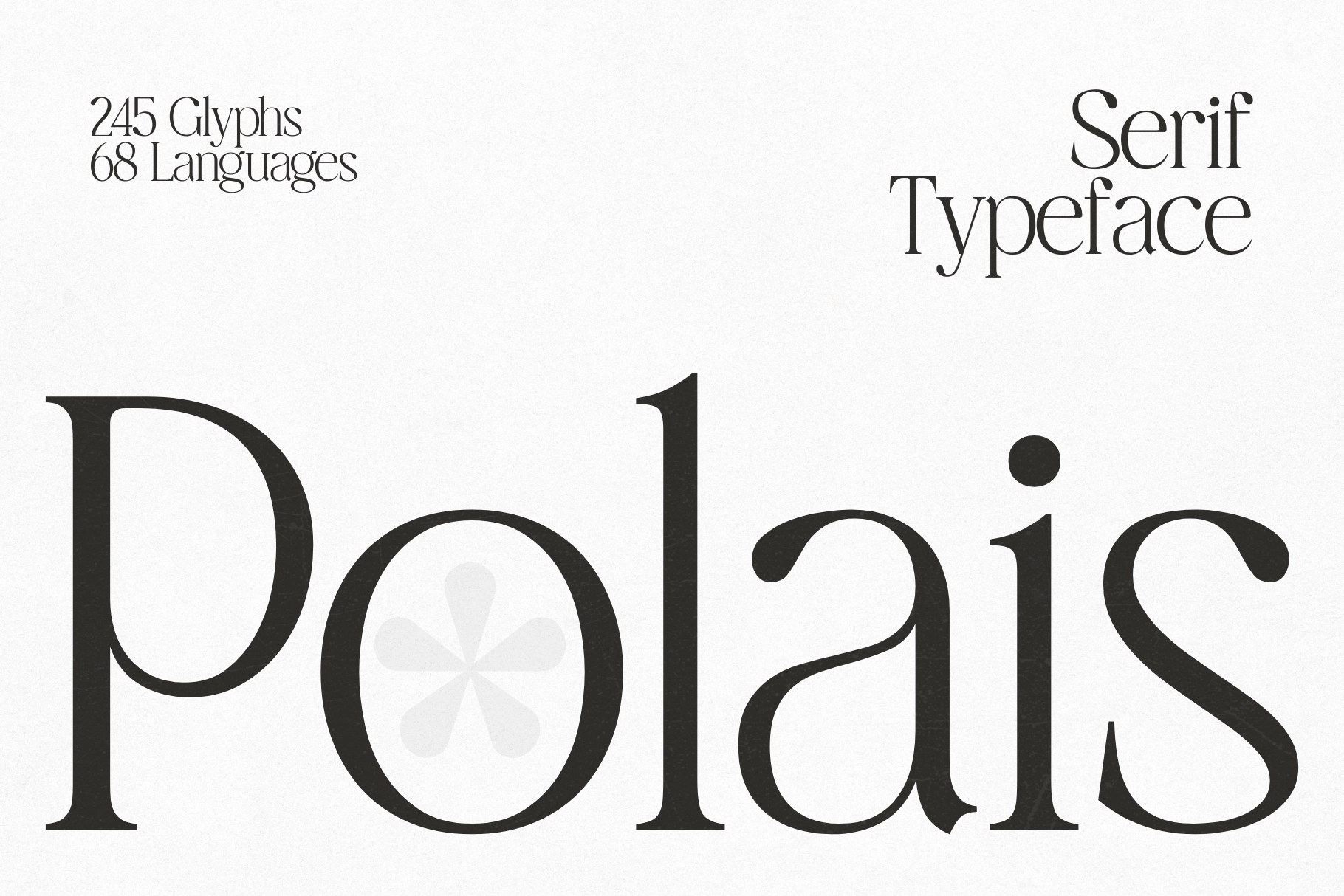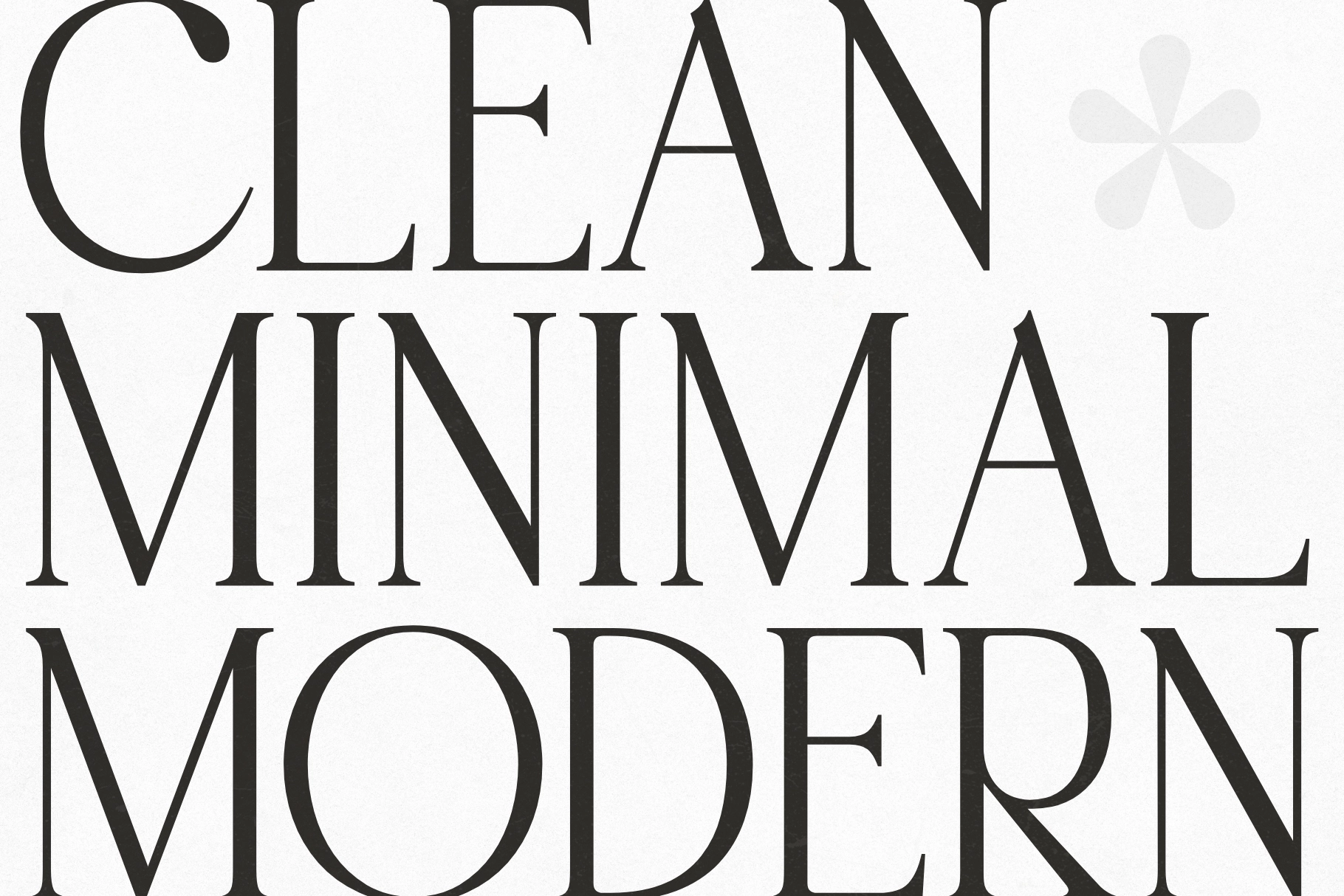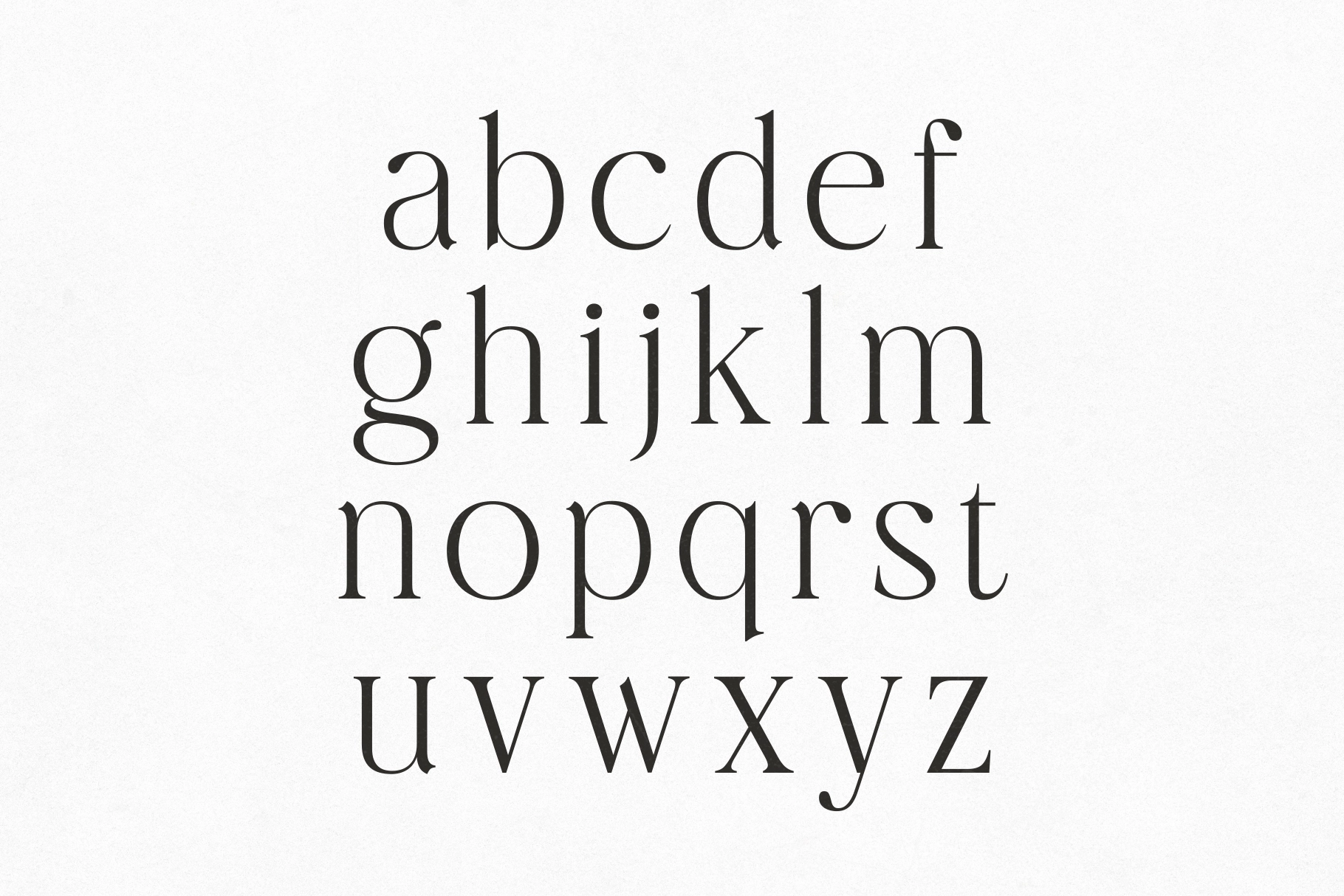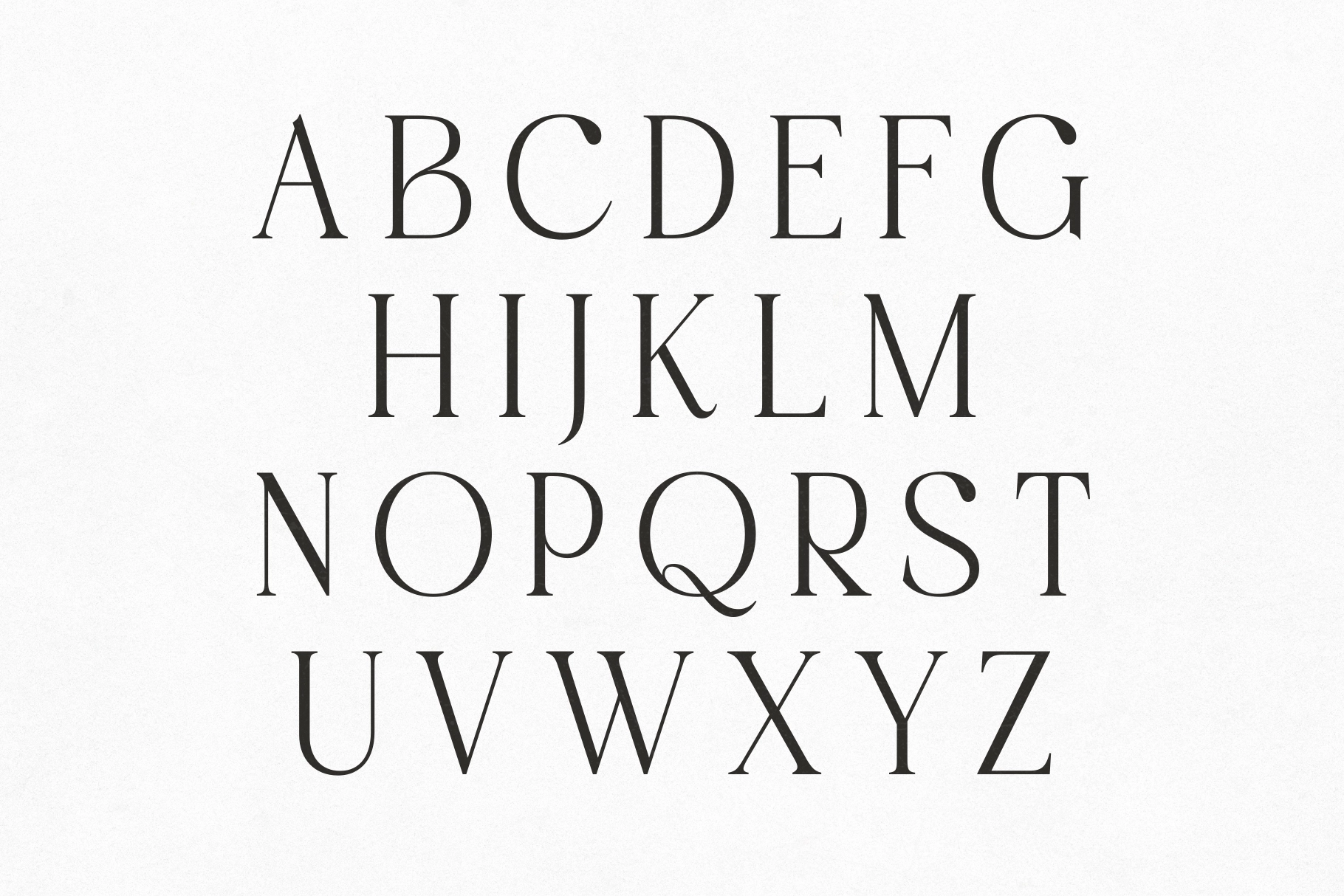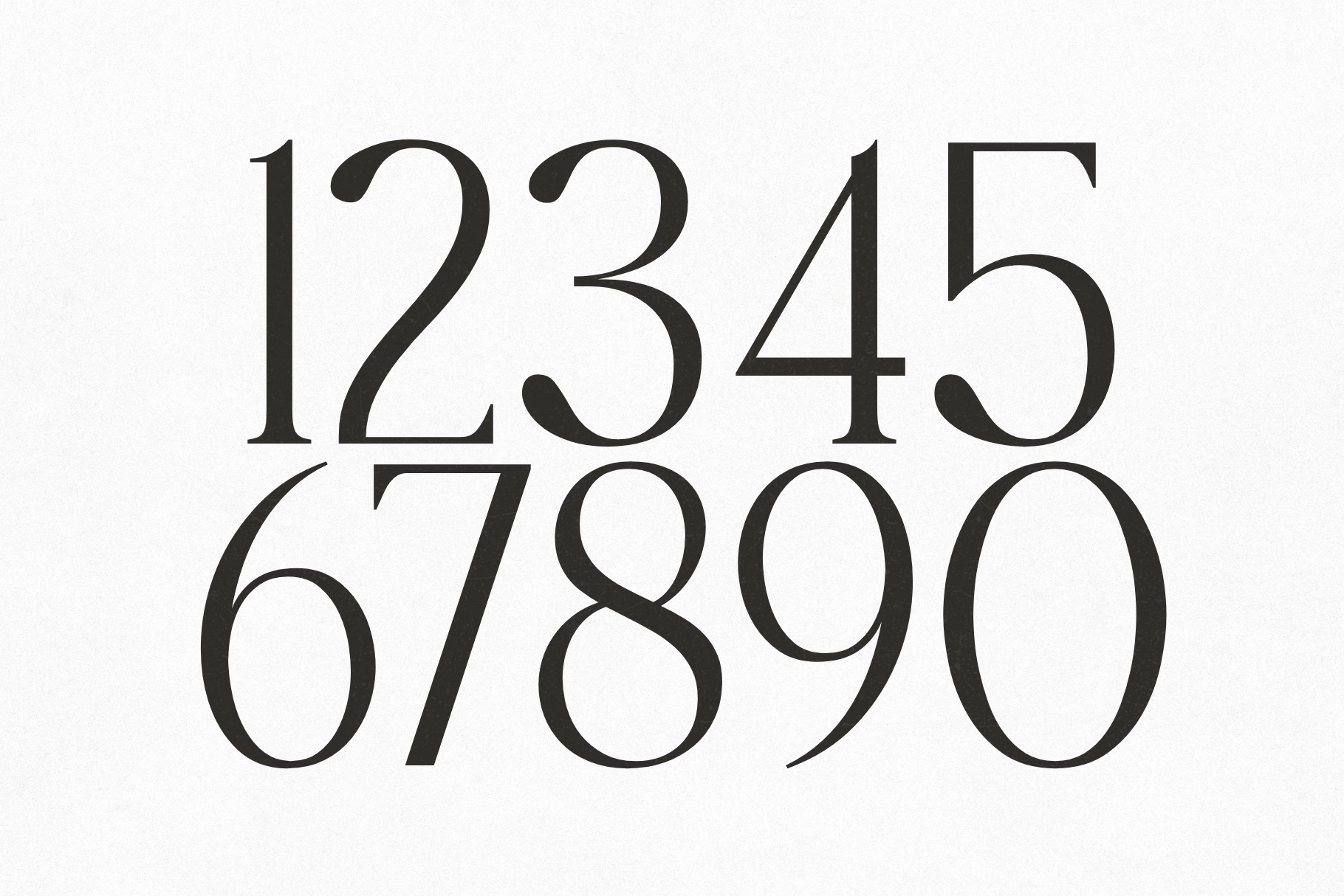
Polais – Modern Luxury Serif
Polais is a modern serif typeface that epitomizes refined elegance, beauty, and timeless sophistication. Designed with balance and precision, Polais features graceful proportions, clean lines, and carefully crafted details that elevate any design with a sense of class and restraint. It feels luxurious without being overbearing—confident, calm, and impeccably polished.
Blending classic serif foundations with a contemporary aesthetic, Polais delivers a harmonious mix of tradition and modernity. Its smooth curves, elegant contrast, and refined structure make it visually striking while remaining highly readable. This balance allows Polais to shine in both bold headlines and refined editorial settings.
Perfect for luxury branding, upscale magazines, fashion editorials, premium packaging, wedding designs, and high-end marketing materials, Polais brings an unmistakable sense of distinction. If your project calls for sophistication, clarity, and timeless beauty, Polais is the perfect typographic choice.